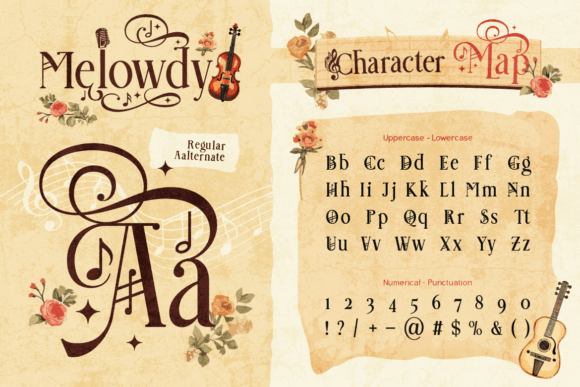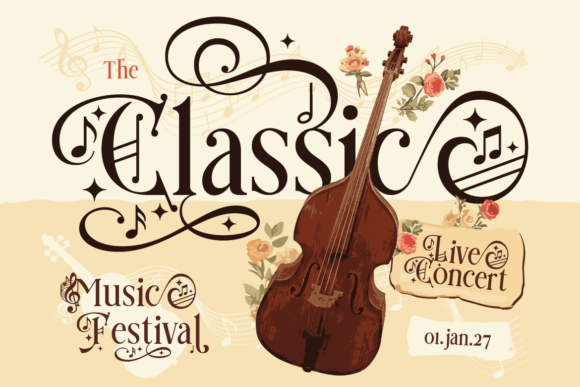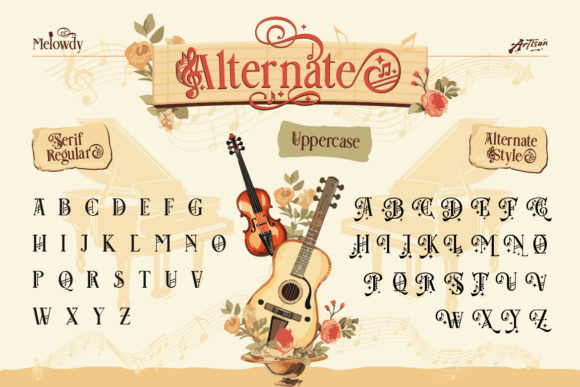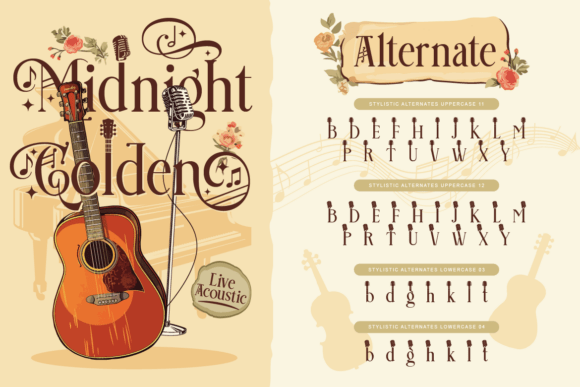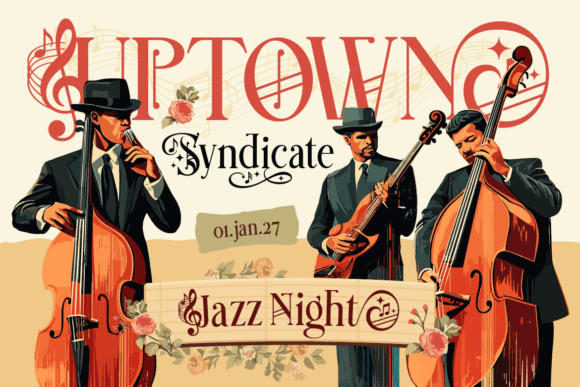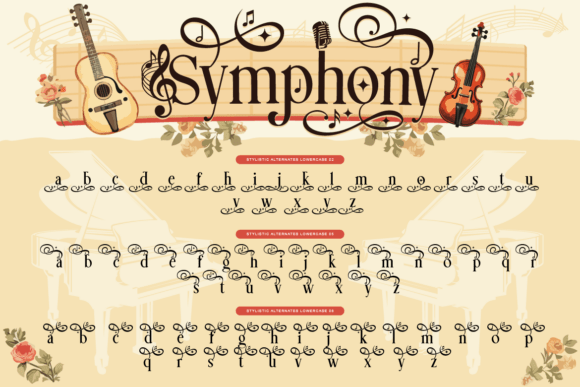
Introduction to Melowdy Font Font
Fonts play a crucial role in design, and the Melowdy Font font is a typeface that brings both character and versatility to any project. Whether you’re working on a branding project, a website, or a print design, the Melowdy Font font offers a unique style that can elevate your work.
Thereβs something magical about music, soft melodies, vintage jazz nights, and timeless performances that stay in your memory.
Melowdy captures that feeling and turns it into a beautifully crafted serif display font with a musical soul Designed with elegant curves and artistic swashes, Melowdy blends classic serif structure with decorative musical elements, making it perfect for designs that need both sophistication and personality.
Key Features of Melowdy Font Font
Why Choose Melowdy Font Font?
The Melowdy Font font is more than just a typeface β it’s a design tool that helps you communicate your message with style and clarity. Its unique character set and versatile design make it suitable for a wide range of applications, from elegant invitations to bold headlines.
With its carefully crafted letterforms and balanced proportions, the Melowdy Font font ensures readability and visual appeal across all mediums.
What makes Melowdy Font font special?
The Melowdy Font font stands out with its unique design, exceptional readability, and versatility across various design applications.